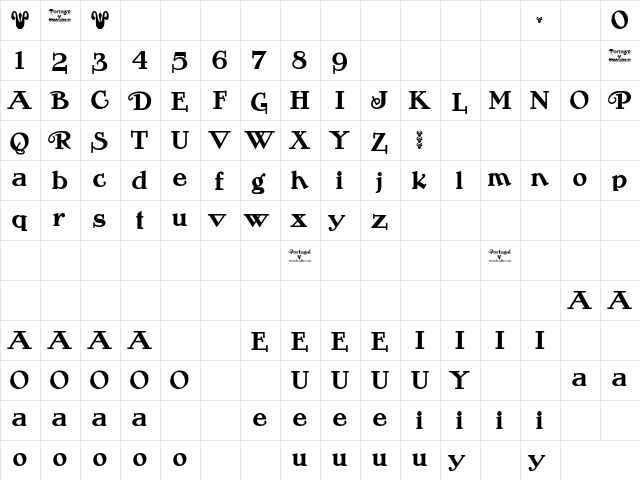
Portugal Vintage Regular
Design Context for Portugal Vintage Typeface
Portugal Vintage has the warm character of retro typography — evoking diners, record sleeves, and the golden age of print advertising.
Font Pairing: Combine Portugal Vintage with a simple slab or neutral sans — period-accurate companions reinforce the vintage feel without competing for attention.
Pro Tip: Use Portugal Vintage for headlines and pull quotes rather than body copy — its personality is best appreciated in short, focused bursts.